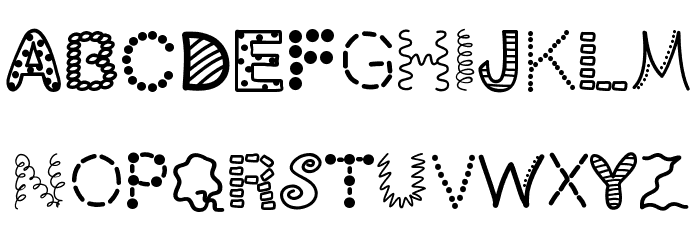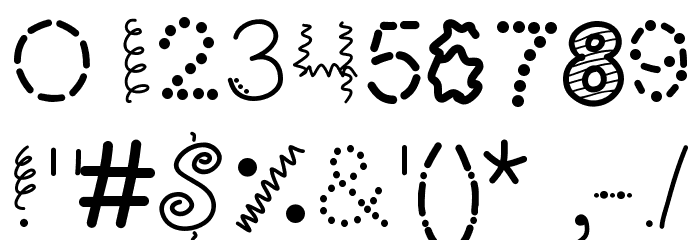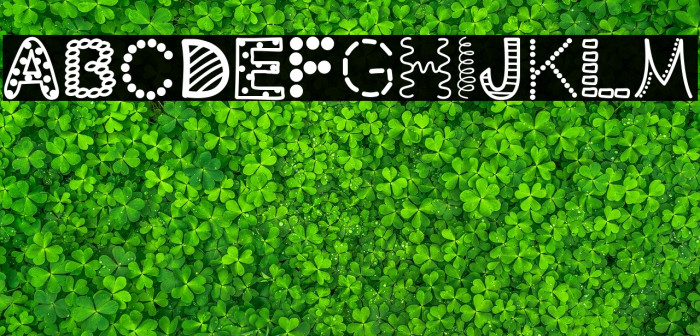
ScrapOHolic Font
This playful and decorative font features a variety of unique patterns and textures within each character, creating a whimsical and eye-catching appearance. Each letter and number is crafted with distinct design elements, such as dots, stripes, and zigzags, offering a lively and dynamic visual experience. The font's creative and artistic style makes it ideal for projects that require a fun and engaging look. Its diverse character set includes uppercase letters, numbers, and special symbols, all maintaining the same vibrant and imaginative theme. The font's overall design is perfect for adding a touch of creativity and flair to any project.
A playful and decorative font with unique patterns and textures for each character.
- Font: ScrapOHolic
- Proposed Projects: Ideal for children's books, party invitations, playful branding, and creative posters.